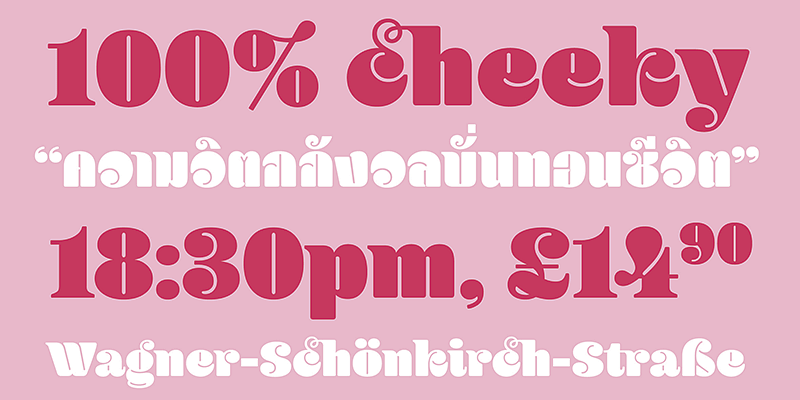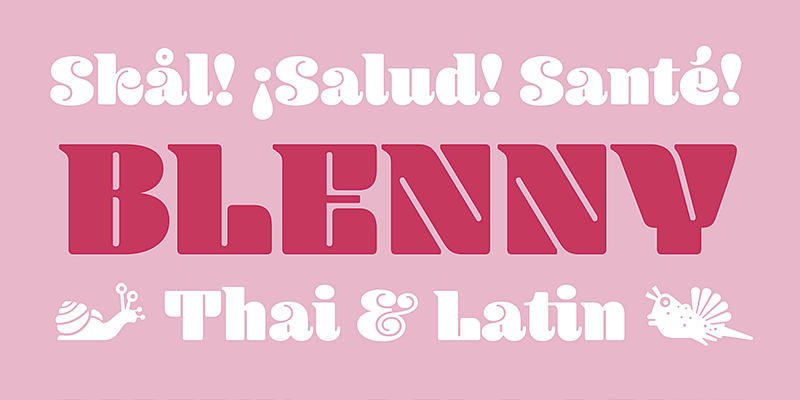
Blenny is a fabulously curvaceous, fat face display font. The soft, voluptuous curves and a retro feel of its single Black weight make it suitable for branding, bold headlines, or product labels.